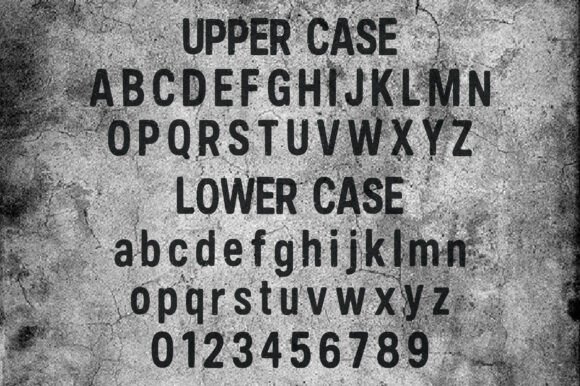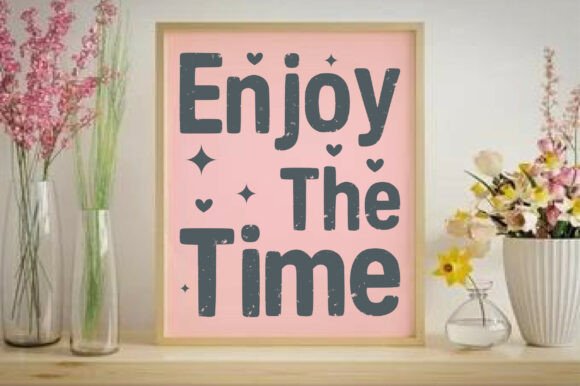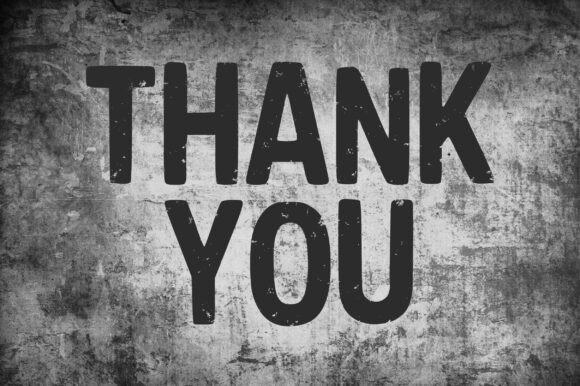
Introduction to Rust Rough Font
Remember the moment when you stumbled upon that hidden alleyway with a vintage sign that seemed to whisper stories of the past? The worn-out letters, the faded colors, and the rugged texture all came together to create an atmosphere that was equal parts nostalgic and rebellious. That’s the kind of creative spark that Rust Rough Font aims to ignite in your design projects.
As a distressed industrial typeface, Rust Rough Font is more than just a design resource – it’s a high-quality tool that can breathe life into your creative projects. With its unique blend of grit, authenticity, and attitude, this font is perfect for designers who want to add a touch of raw, vintage charm to their work. Whether you’re working on a music cover, a poster, or a branding project, Rust Rough Font is sure to make your design stand out from the crowd.
Key Features of Rust Rough Font
- Unique texture and distressed effects add a touch of rugged elegance to any creative project.
- Perfect for designers looking to add a vintage or industrial feel to their designs.
Honest Review: Rust Rough Font
As a designer, I’m always on the lookout for high-quality design resources to elevate my creative projects. Recently, I came across the Rust Rough Font, and I’m excited to share my thoughts on this fantastic find.
What works well: ✨ The Rust Rough Font is a fantastic addition to any designer’s toolkit. It’s a free download, which is always a bonus, and it features a unique, distressed aesthetic that’s perfect for adding some grit and texture to your designs. The font is also highly versatile, making it suitable for a wide range of creative projects.
What I particularly love about this font is its ability to work well with transparent backgrounds. This allows for a seamless integration into your designs, making it easy to create eye-catching visuals.
- Works well on a variety of projects, including posters, logos, and social media graphics
- Features a unique, distressed aesthetic that adds texture and depth to designs
⚠️ One limitation I’ve noticed is that the font can be a bit overwhelming if used in large quantities. It’s essential to balance its usage with other design elements to avoid overwhelming the viewer.
Overall, I’m thoroughly impressed with the Rust Rough Font. It’s a high-quality design resource that’s sure to become a staple in any designer’s toolkit. Whether you’re working on a creative project or just looking to add some texture to your designs, this font is an excellent choice.
Rust Rough Font
The Rust Rough Font is a high-quality design resource ideal for creative projects. This font is perfect for adding a unique touch to your designs.
Tips for Getting the Most Out of Rust Rough Font
To get the most out of the Rust Rough Font, use it with a transparent background to create a unique and eye-catching design. You can also pair it with other fonts to create a visually appealing combination.
The Rust Rough Font is ideal for use in various creative projects, such as:
- Brochure design
- Poster design
- Business card design
With its high-quality design and free download option, the Rust Rough Font is a great resource for any creative project.